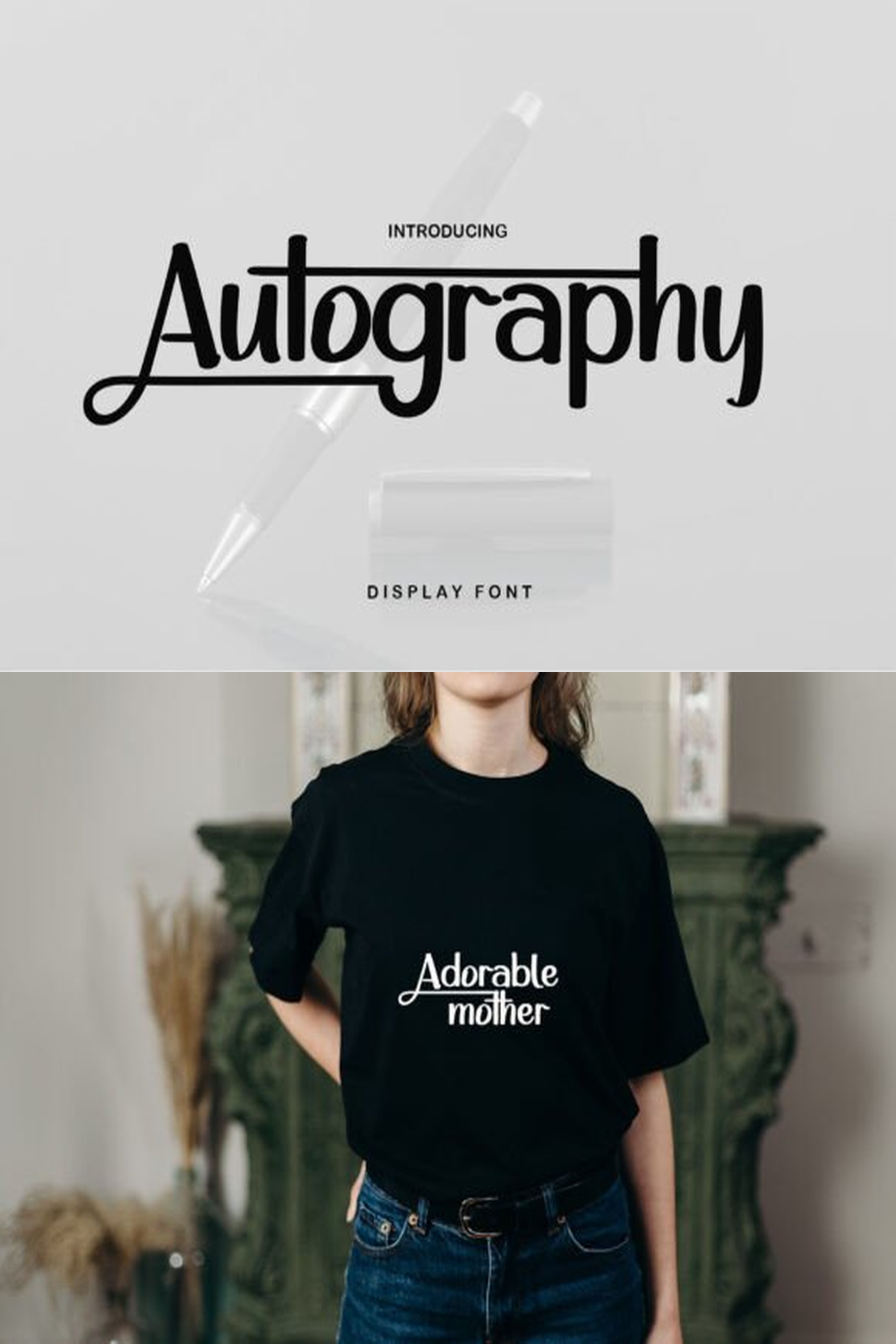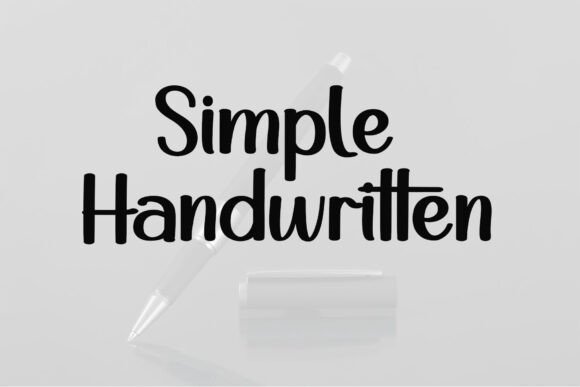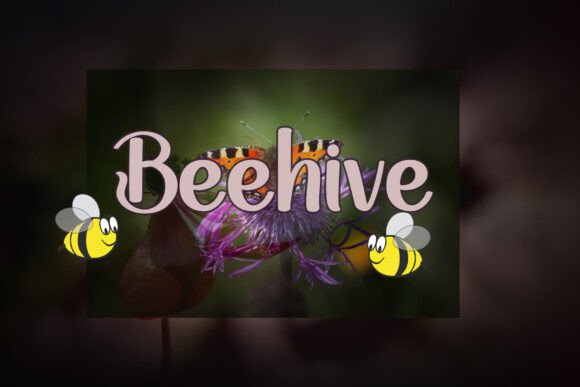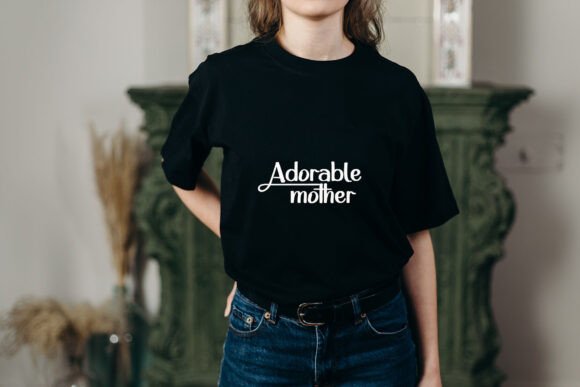
About the Autography Font
The Autography Font offers a perfect balance of form and function for your design needs. Autography is a delicate, elegant and flowing handwritten font. It has beautiful and well balanced characters and as a result, it matches a wide pool of designs. Add it to your most creative ideas and notice how it makes them come alive!